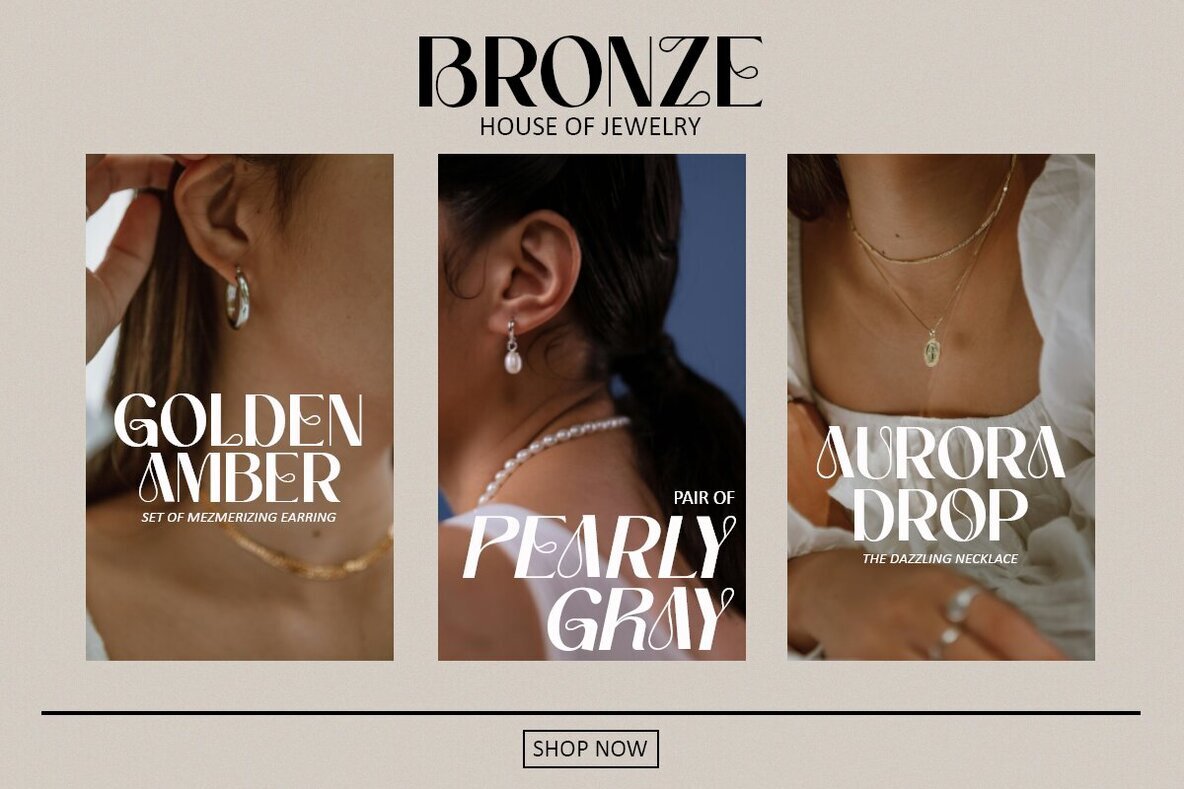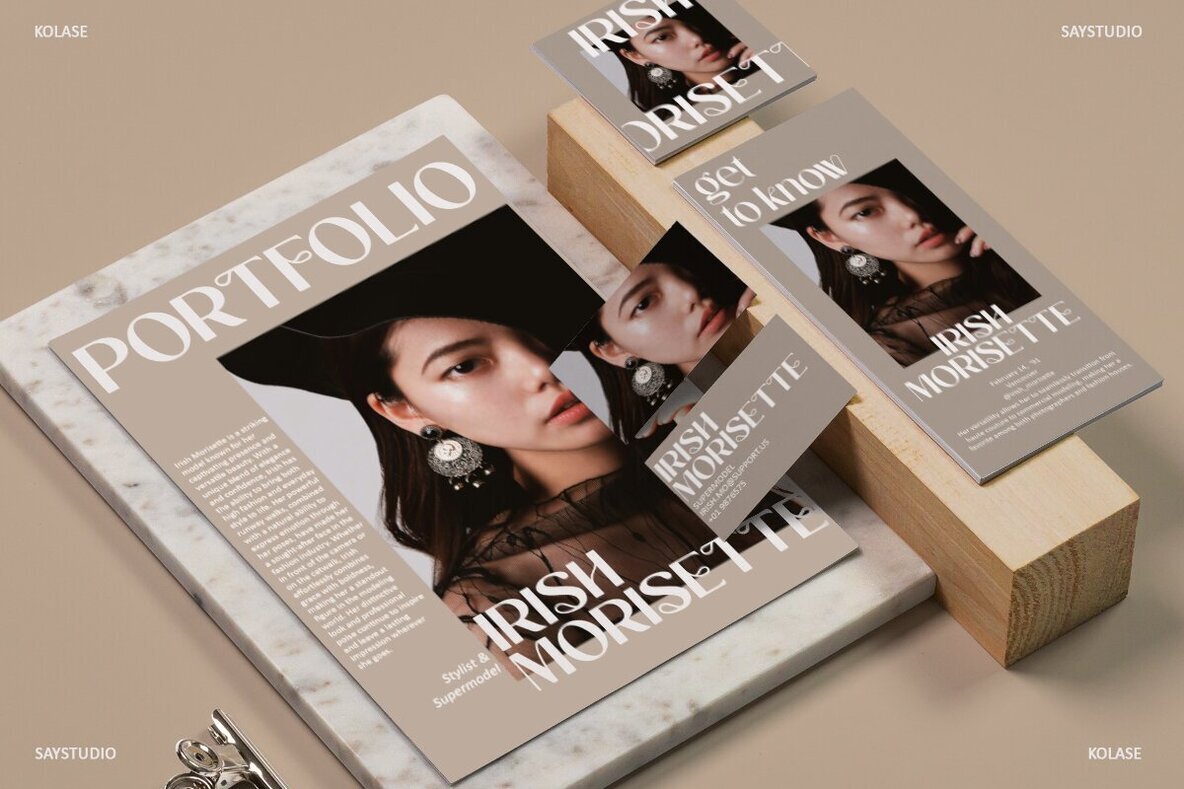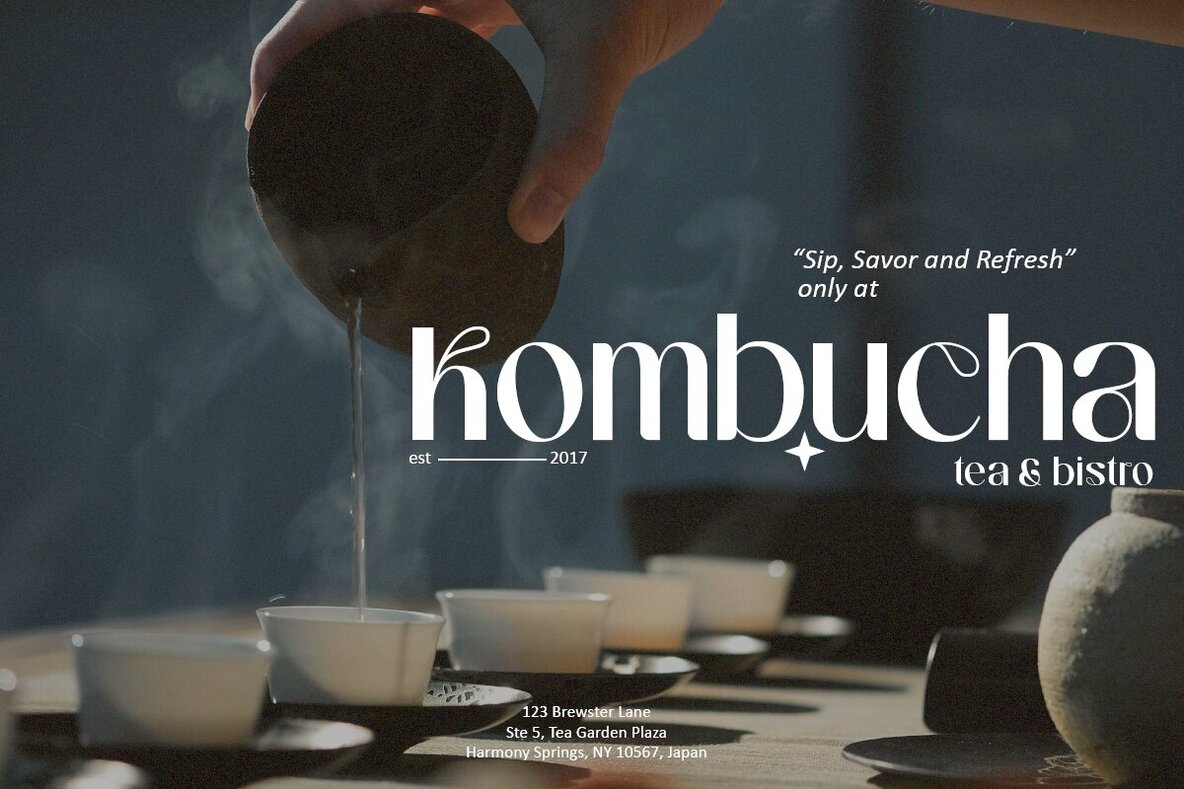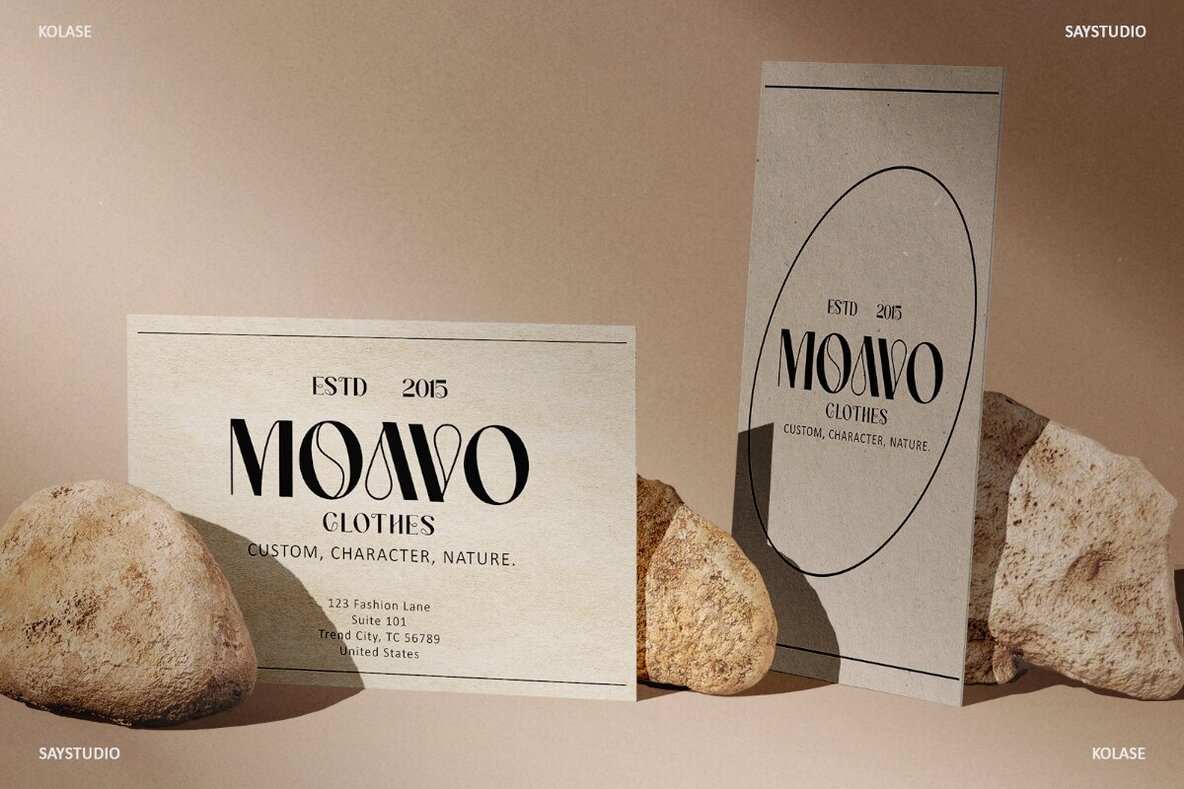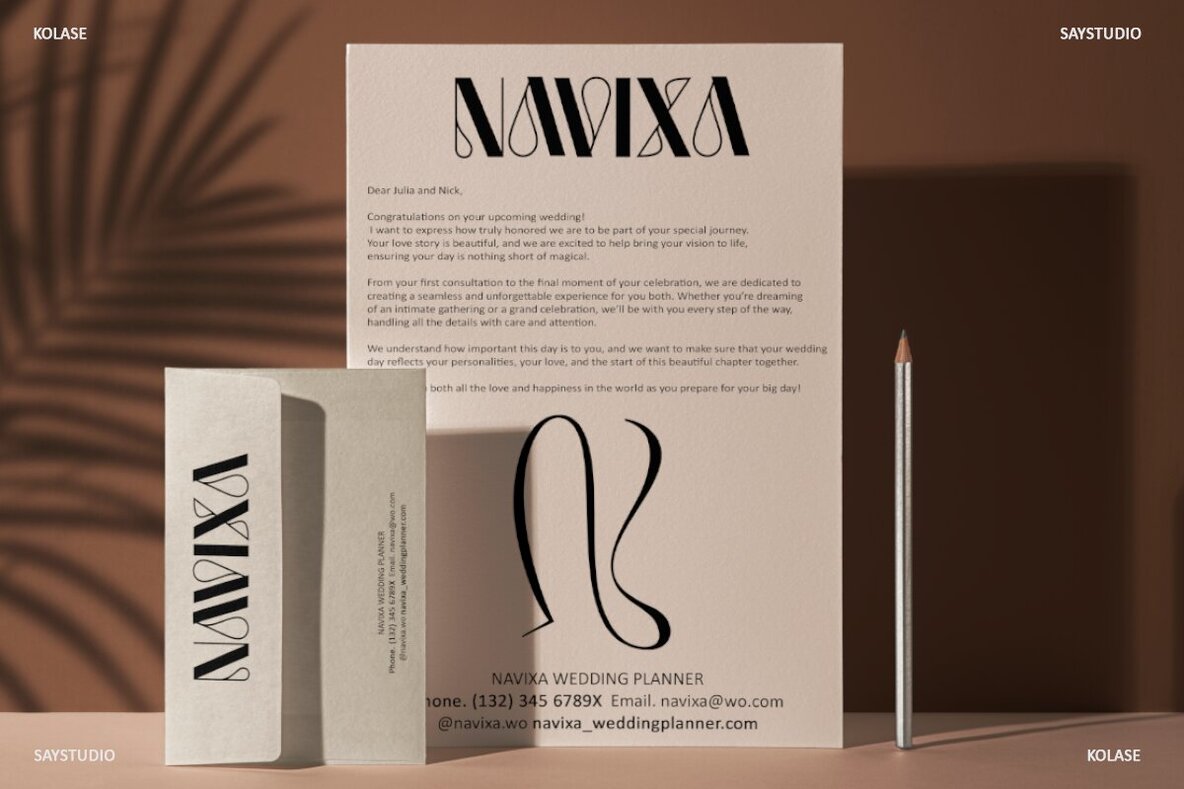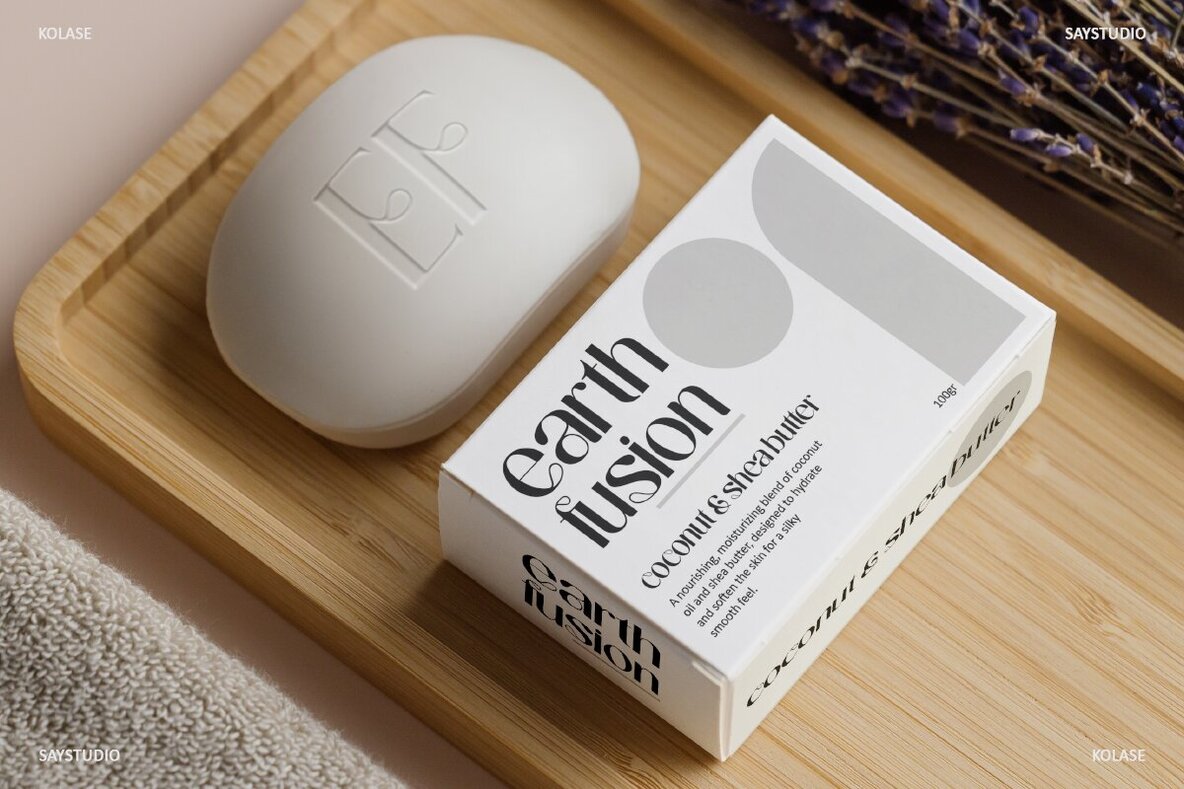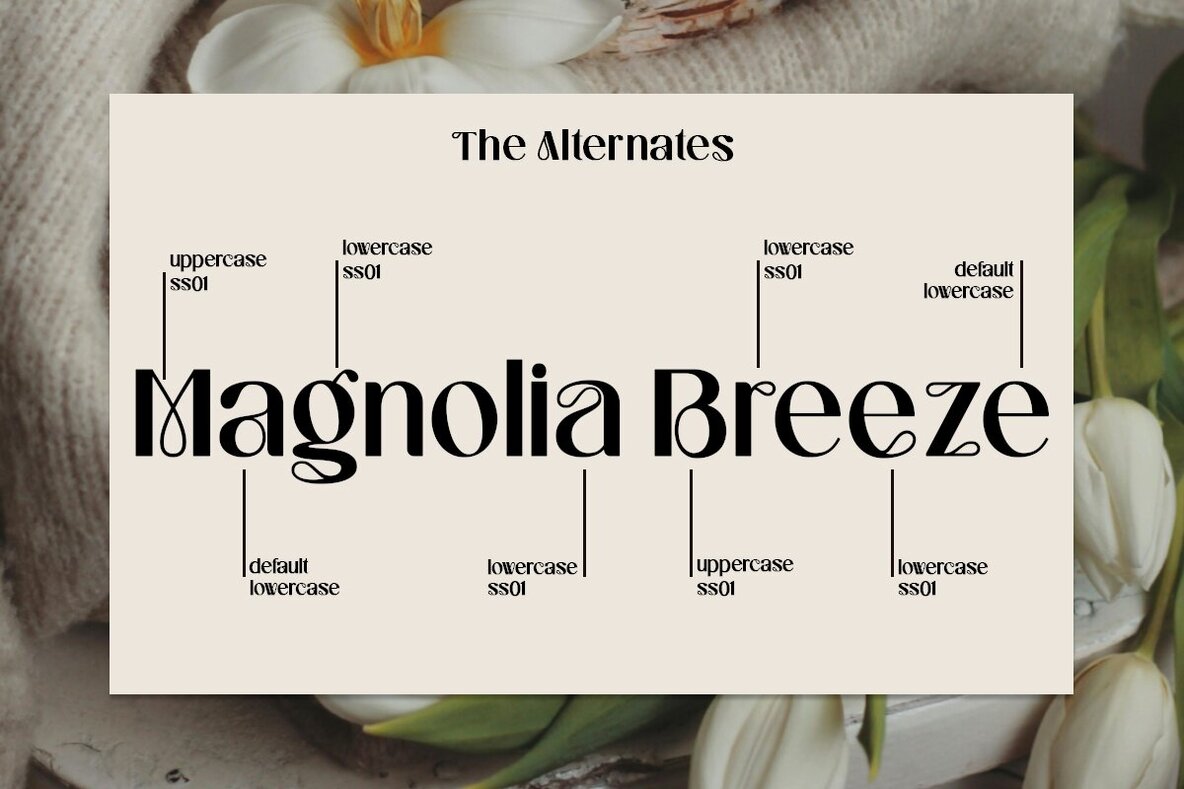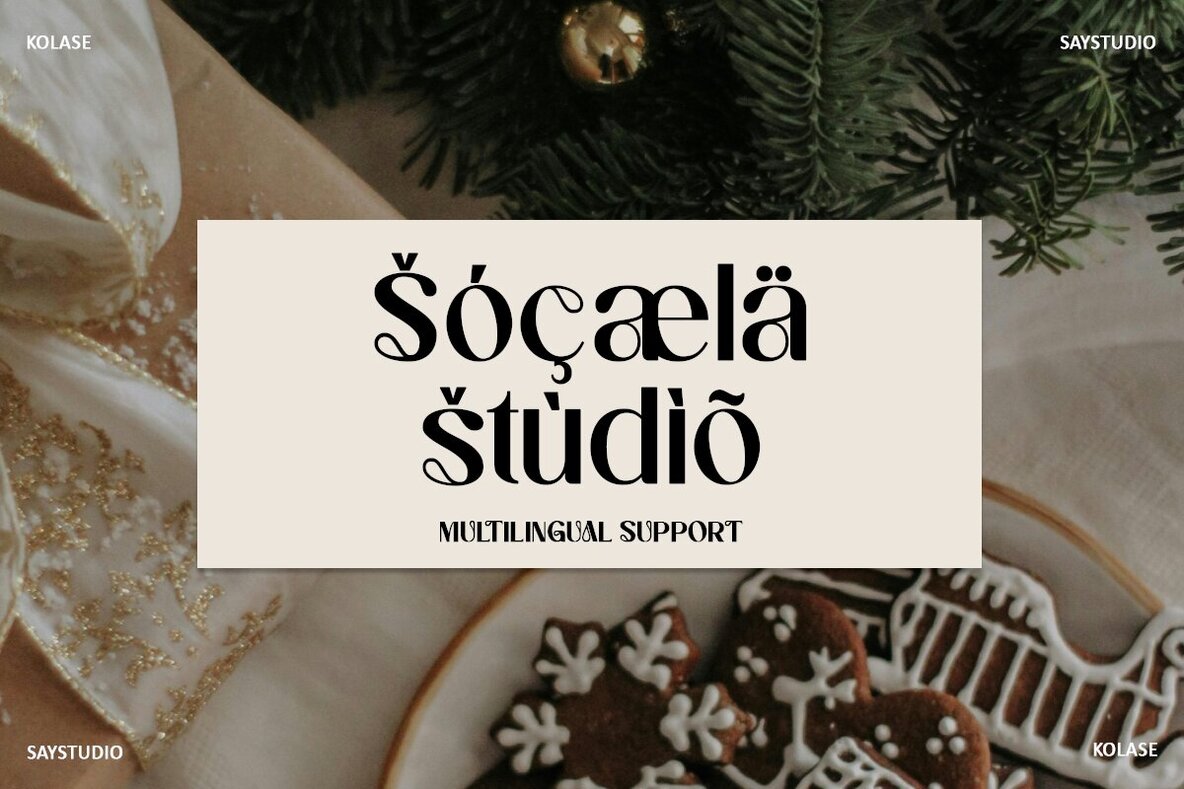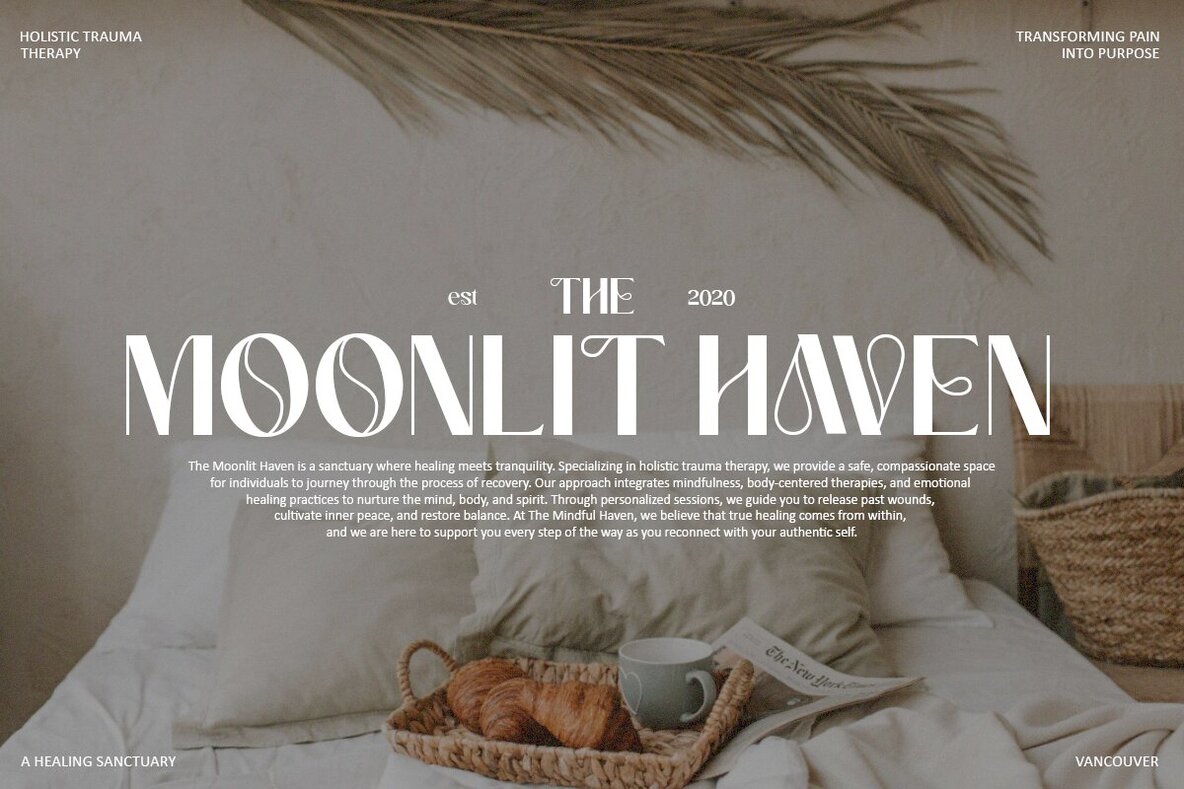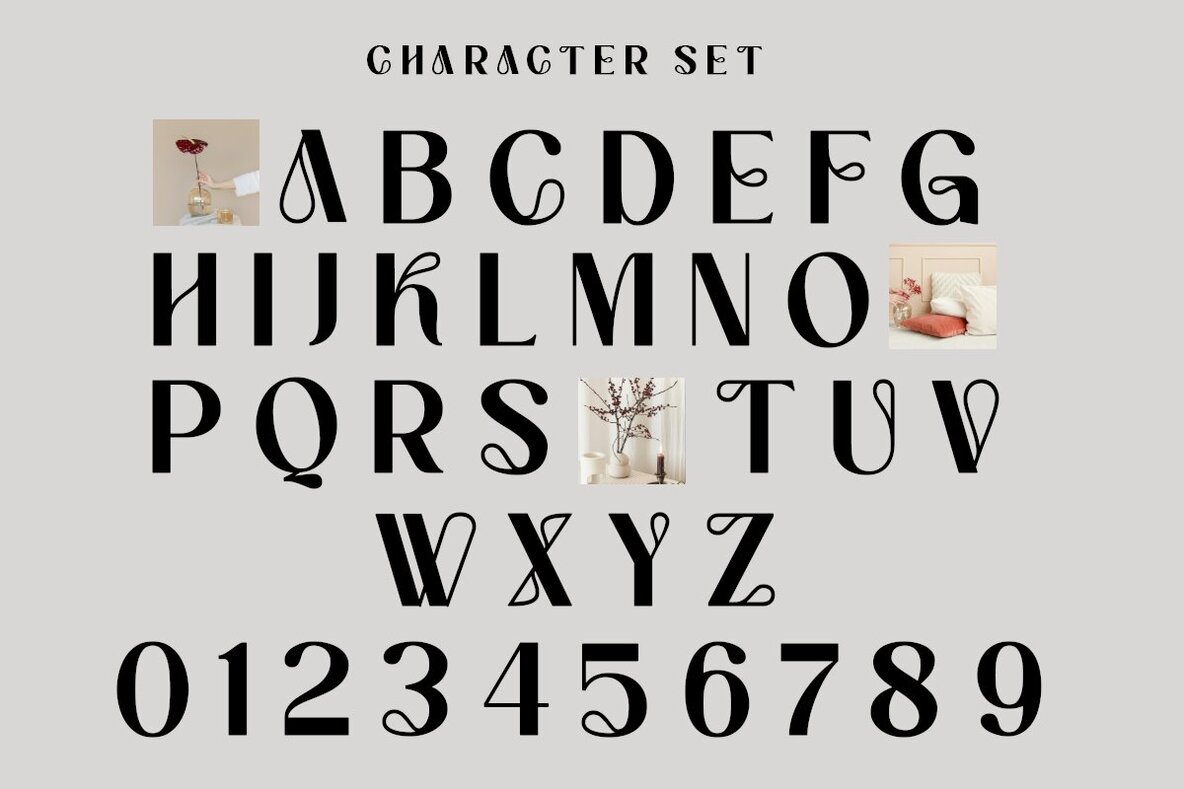
Kolase Font
Kolase is a contemporary serif font that merges elegant curves with versatility. What distinguishes Kolase from other sans-serif fonts is its elaborate set of alternate characters, featuring ornate swirls and flowing curves. This additional character set can either stand alone or be seamlessly woven into the regular character set, offering a wealth of word layout options along with ample room for creative experimentation.
Ideal for modern logo and brand designs, Kolase is also perfect for product packaging, display text, website headers, and invitations. Its clean and sophisticated nature makes it a top choice for designers looking to create striking typography. The font includes alternate characters and supports multiple languages, ensuring broad usability across various design projects.